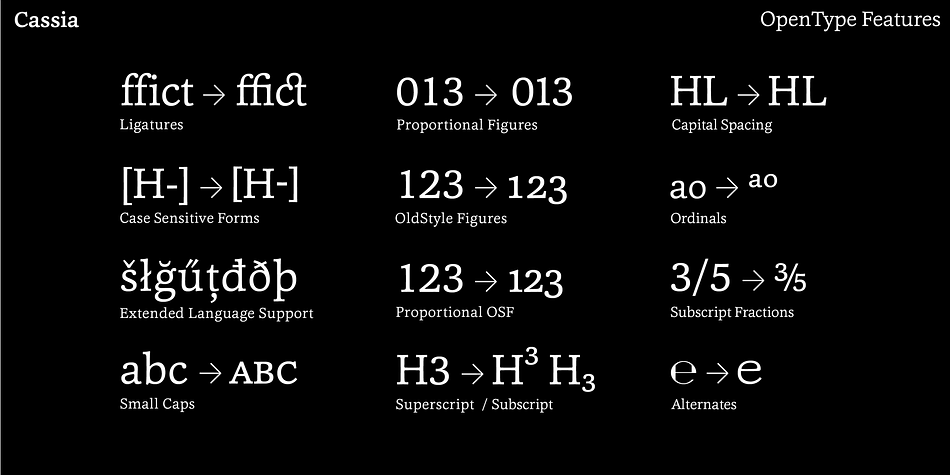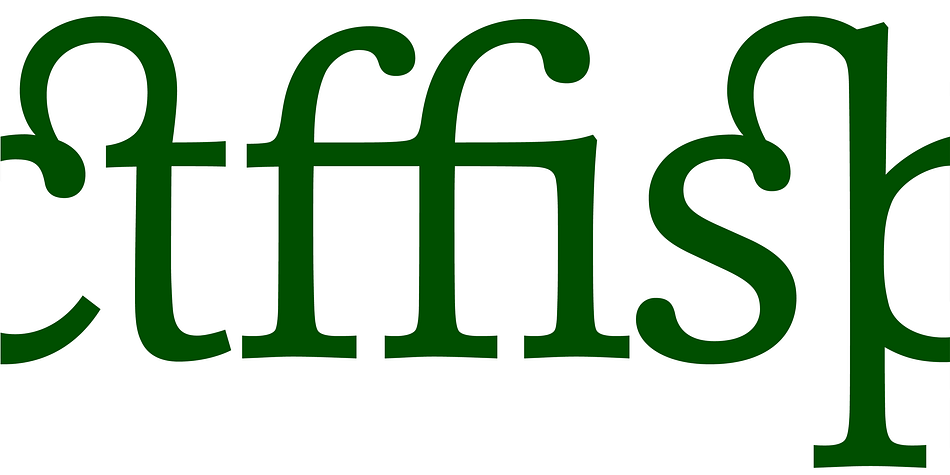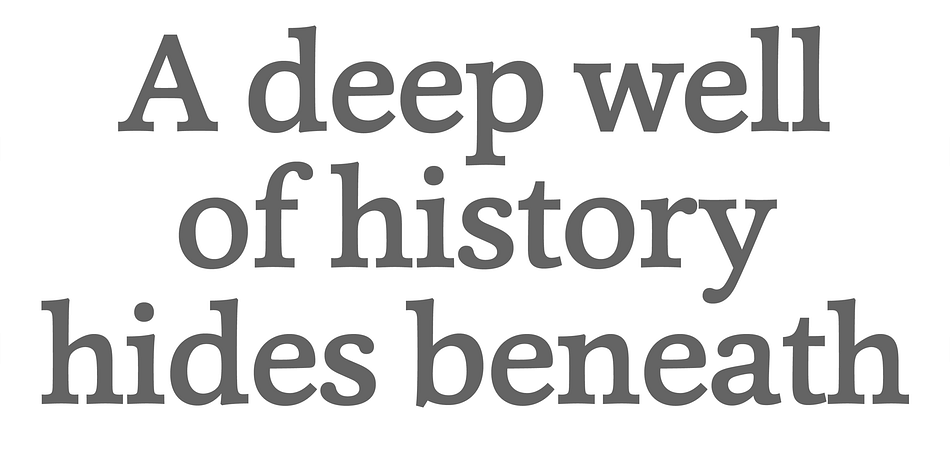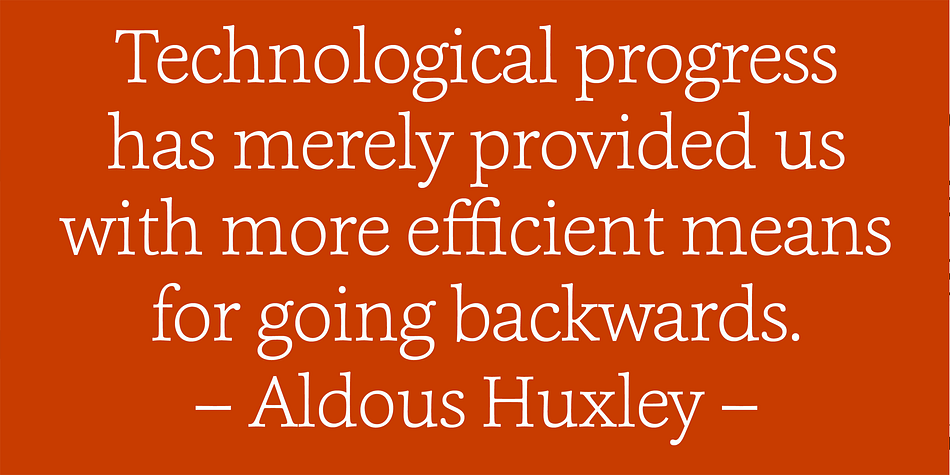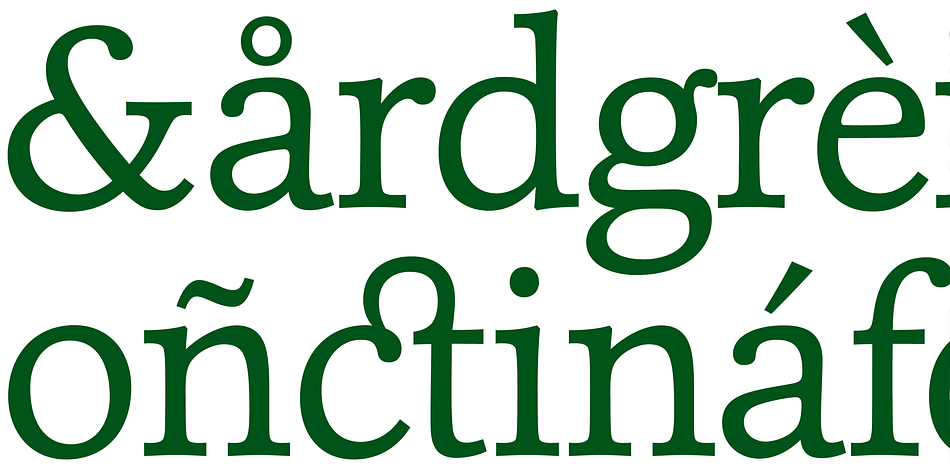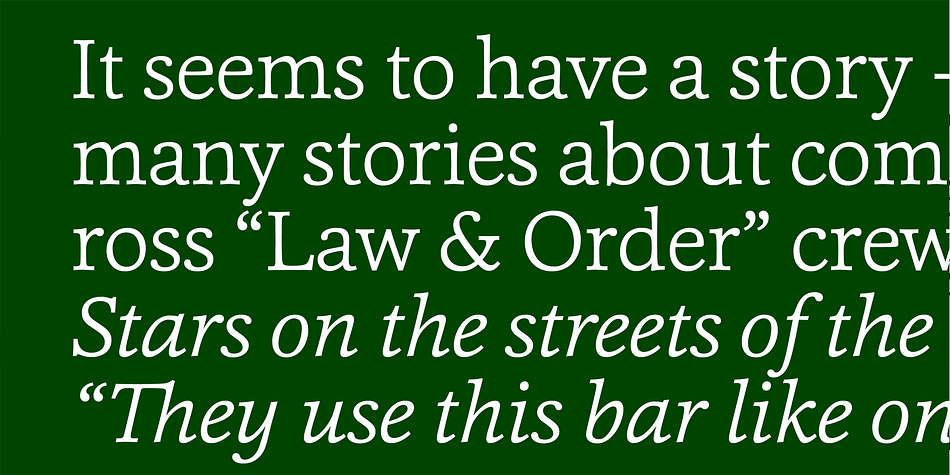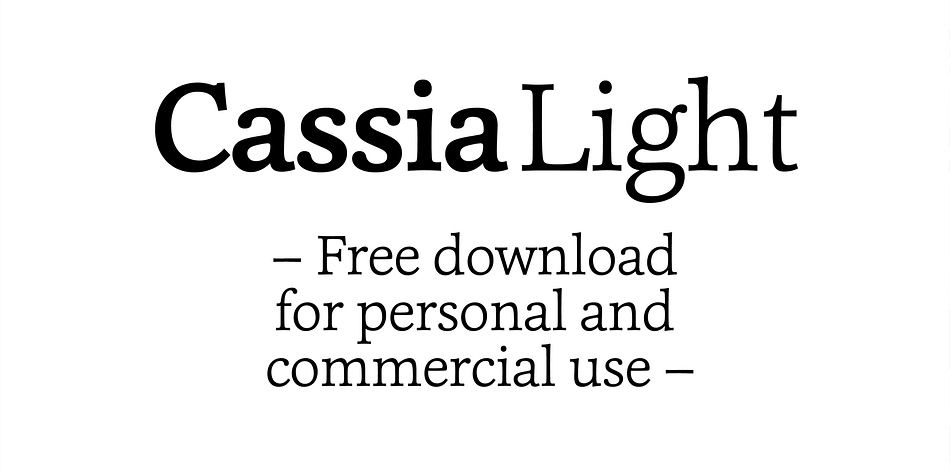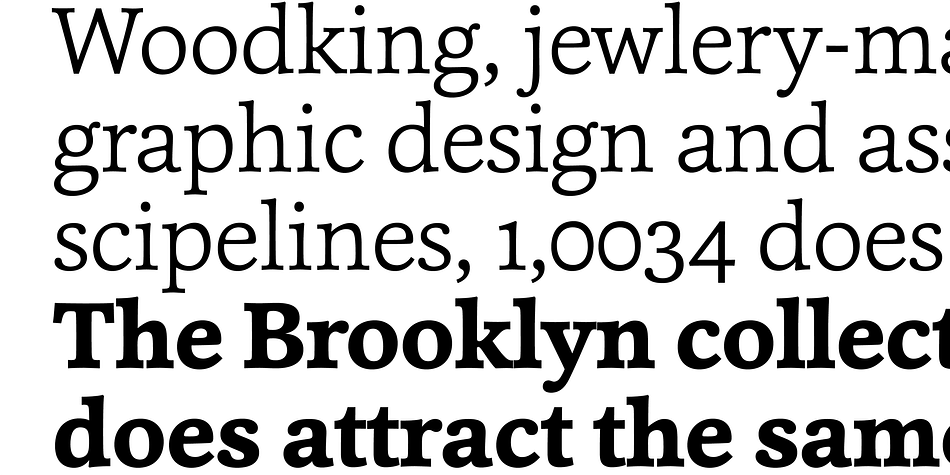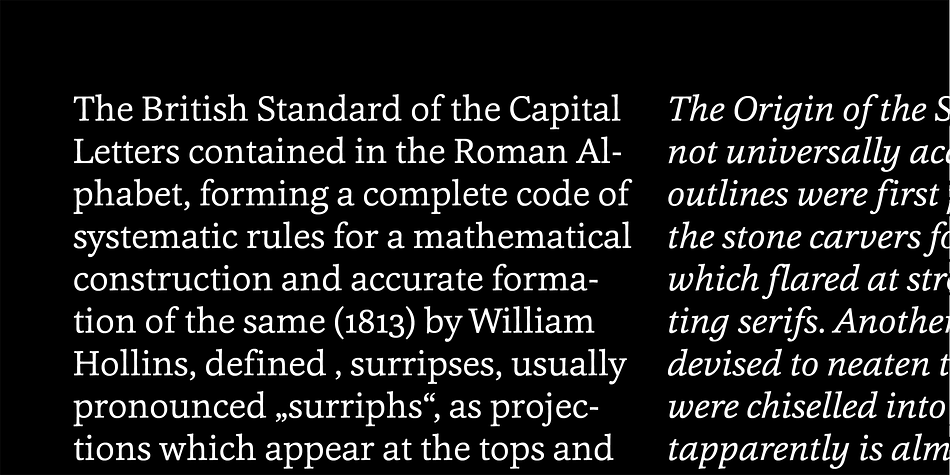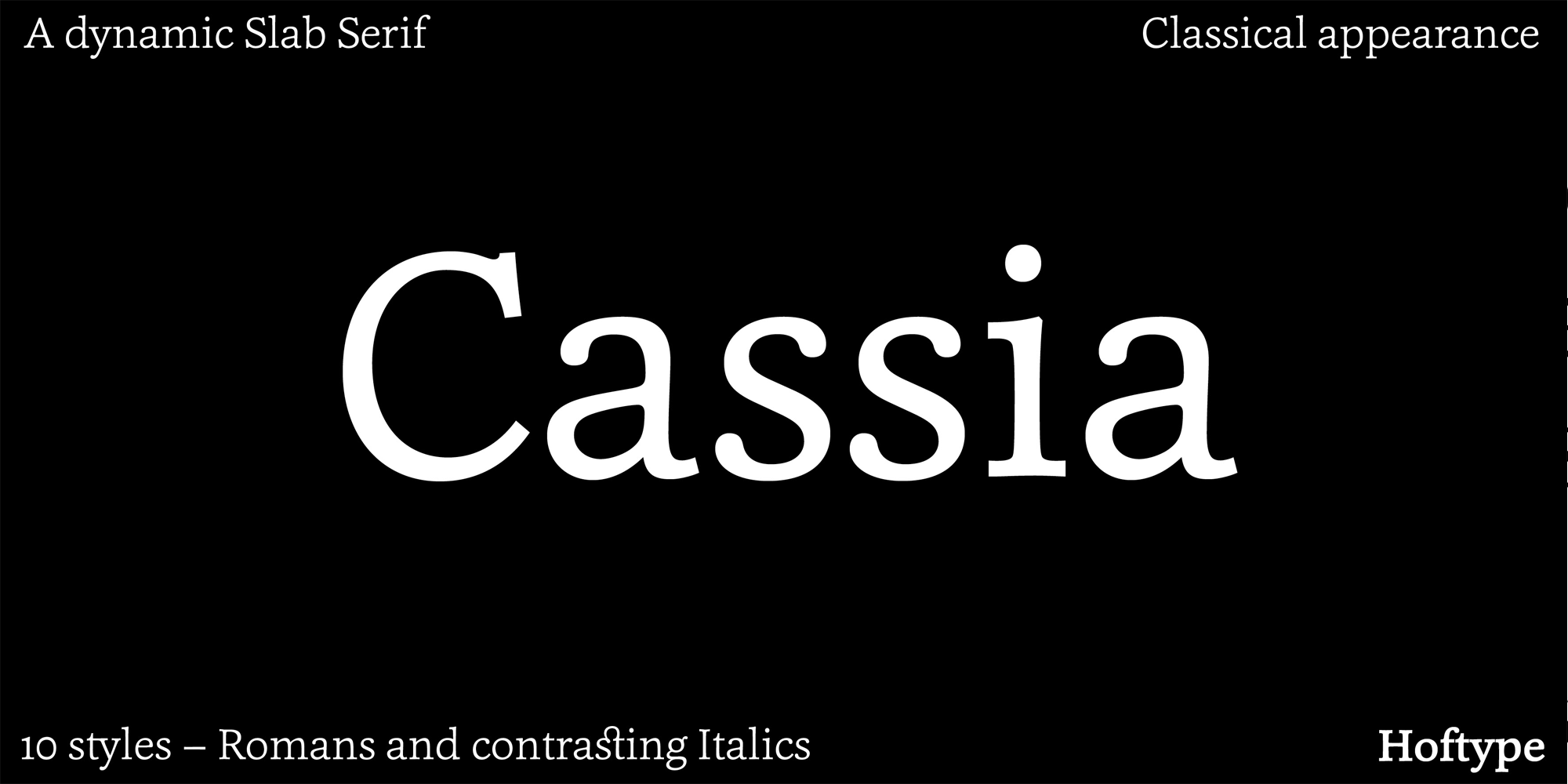
Cassia is a slab serif font family. This typeface has ten styles and was published by Hoftype.
Cassia - a dynamic ‘Egyptienne’ with contrasting Italics and a classical appearance. More individual and agile and less cold than most Slab Serifs, it joins impetuosity with vitality. In display sizes it dazzles through its lusty appearance, and, even in the smallest sizes, it works superbly for large amounts of text.
Cassia comes in ten styles, in OpenType format and with extended language support for more than 40 languages. All weights contain small caps, standard and discretional ligatures, proportional lining figures, tabular lining figures, proportional old style figures, lining old style figures, matching currency symbols, fraction- and scientific numerals.